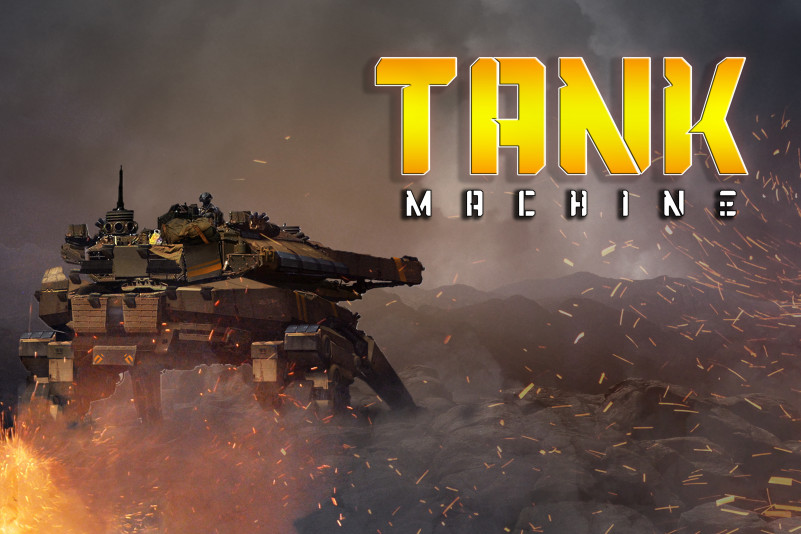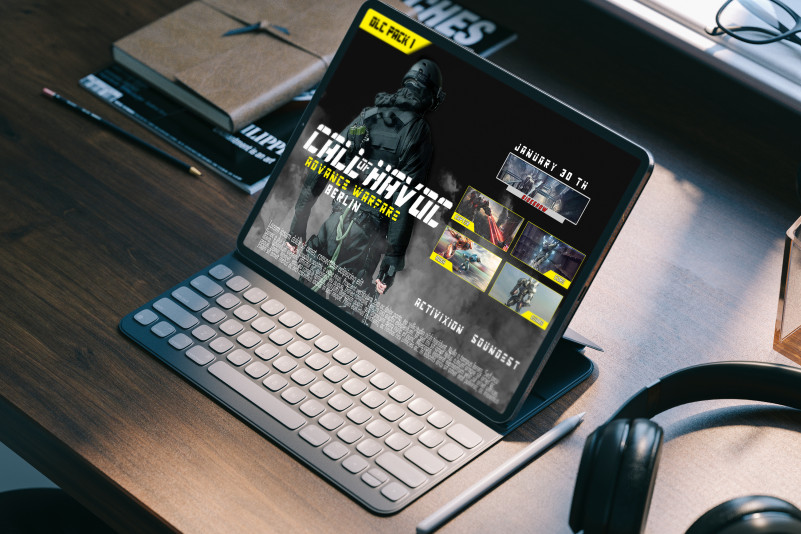
Cosmos Futuristic Font
This is a futuristic font, designed and shared by Mhdafifersya. It’s a modern brush font with handwritten style and natural rough dry brush strokes. Introducing Cosmos Font. Cosmos is a futuristic font, this font Is perfect for logo, invitation, stationery, wedding designs, social media posts, advertisements, product packaging, product designs, label, photography, watermark, special events or anything. Displatter comes with full set of uppercase and lowercase letters, multilingual symbols, numerals, punctuation.